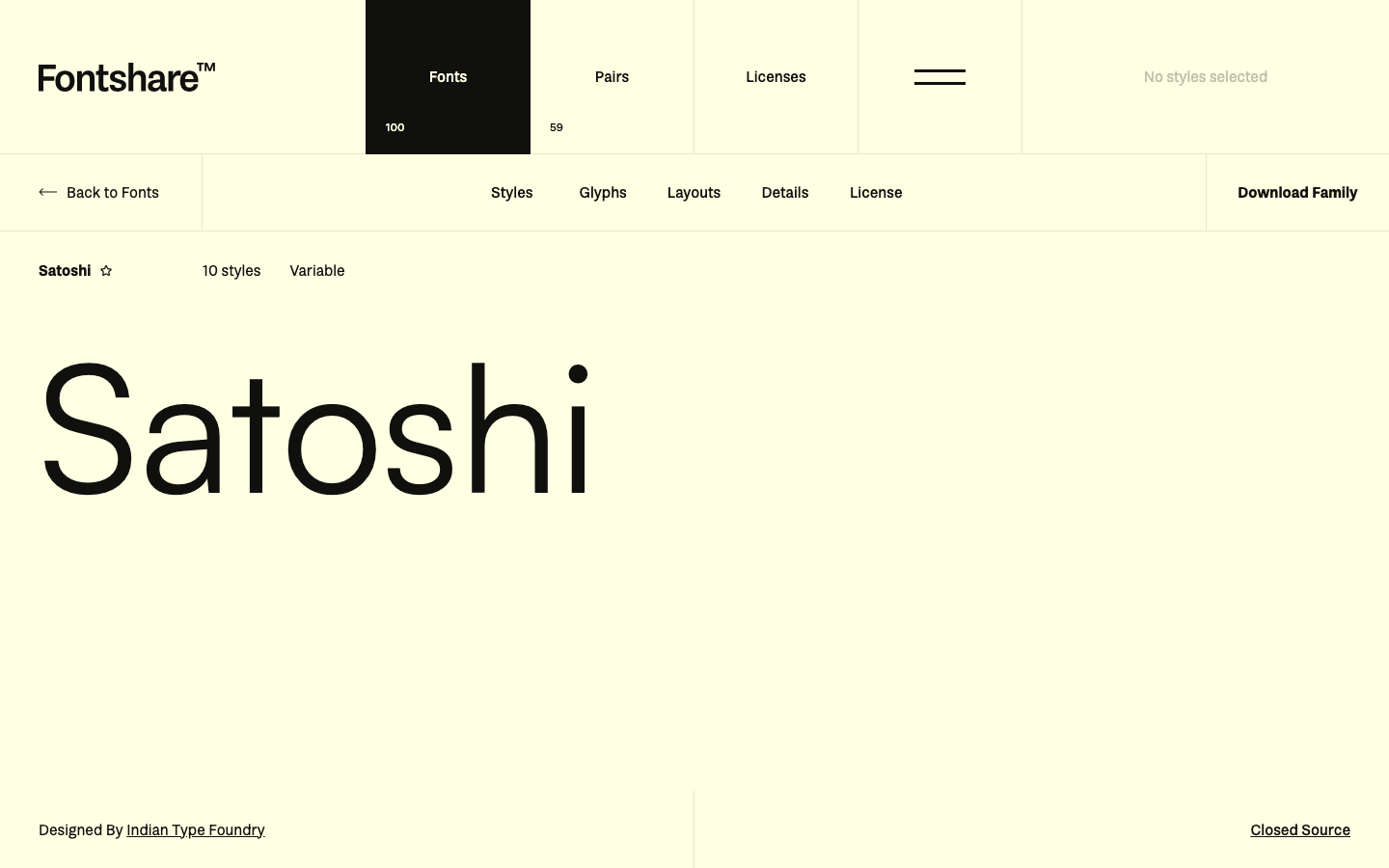
Newson vs Satoshi
Newson and Satoshi are both sans-serif typefaces sharing a modern foundation. Where Newson leans geometric, rounded, Satoshi brings neo-grotesque, minimal. Compare which suits your Branding project.
Newson
GeometricRounded
ModernWarm
Satoshi
Neo-Grotesque
ModernMinimal
Tech
Newson
Satoshi
| Feature | Newson | Satoshi |
| Variable Font | No | Yes |
| Weights | Multiple | Variable |
Newson Satoshi
UI Design
Newson Satoshi
Applications
Newson Satoshi
Technology
Newson Satoshi
Recommended: Newson
- geometric, rounded design character
Consider: Satoshi
- neo-grotesque, minimal design character
- Available as a variable font